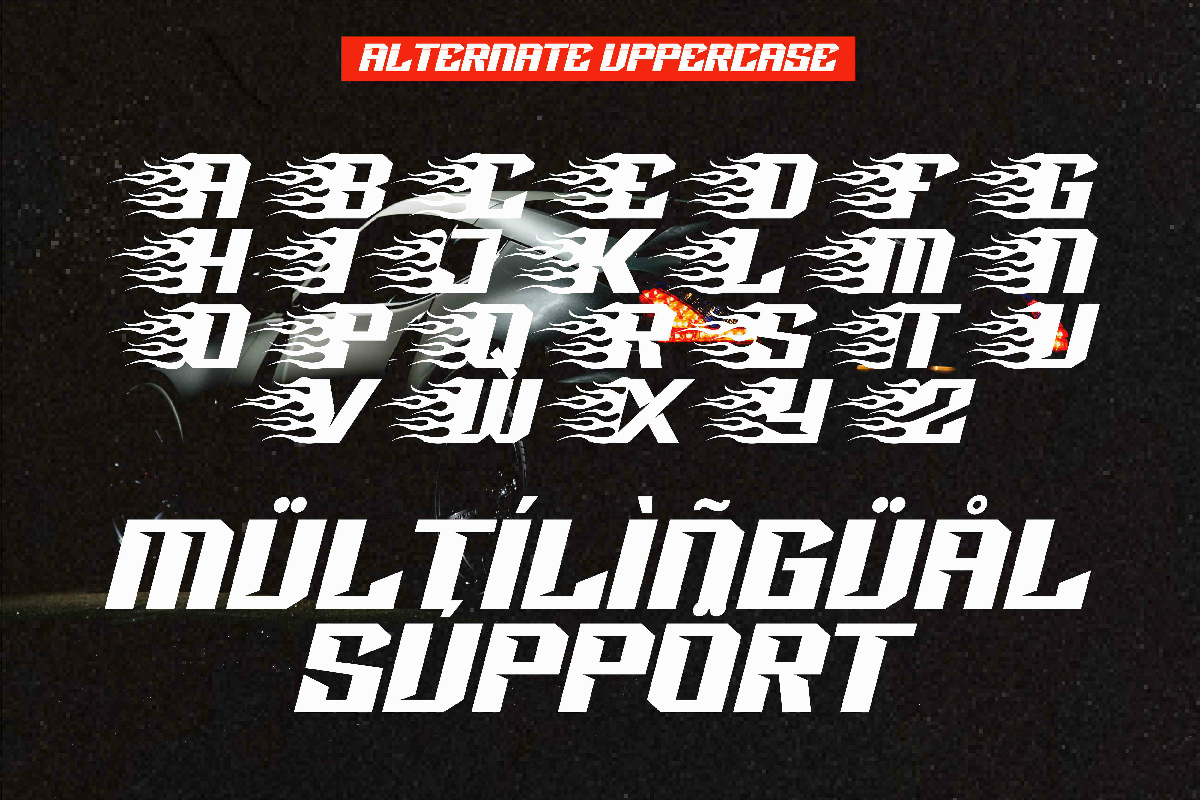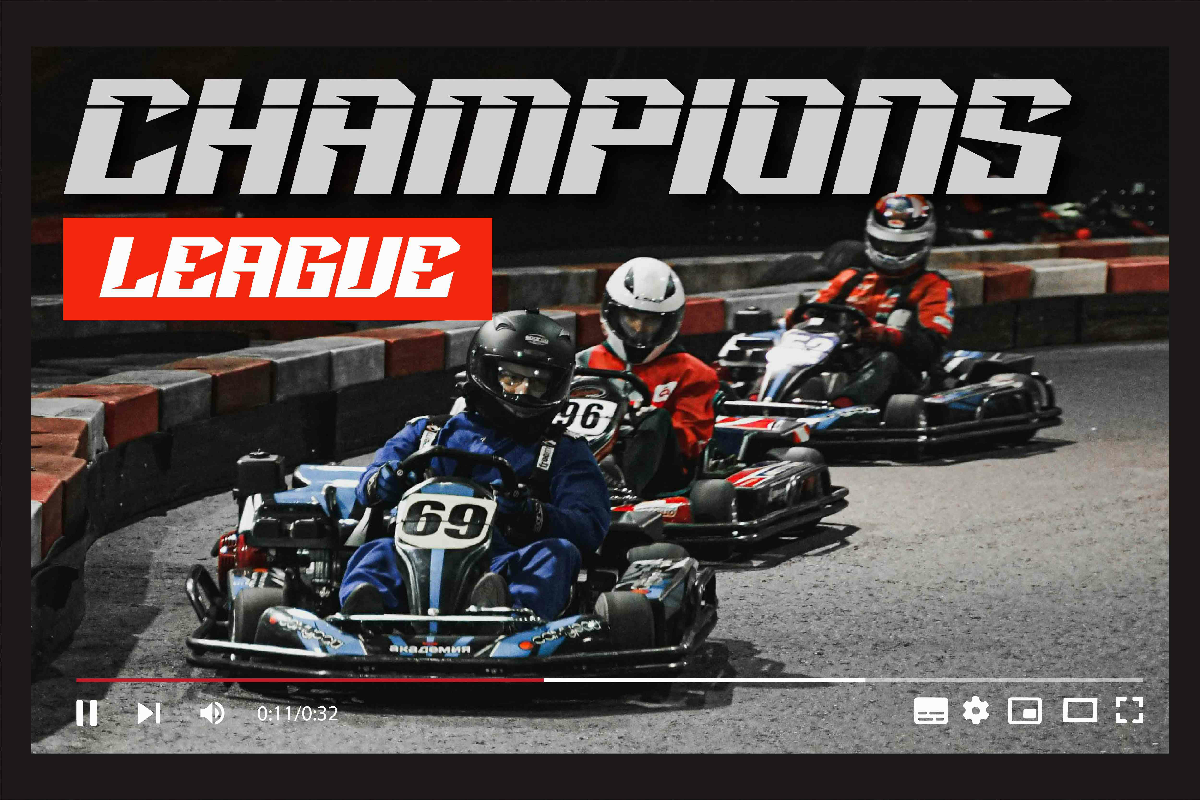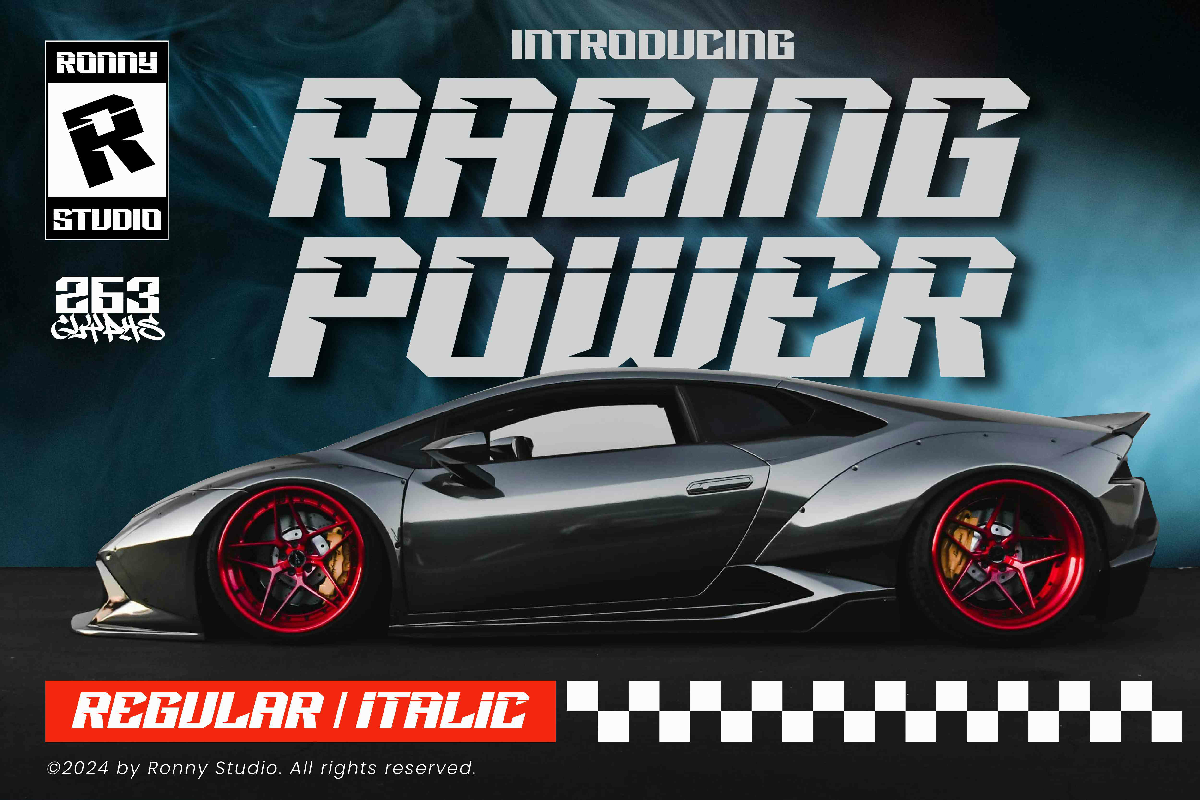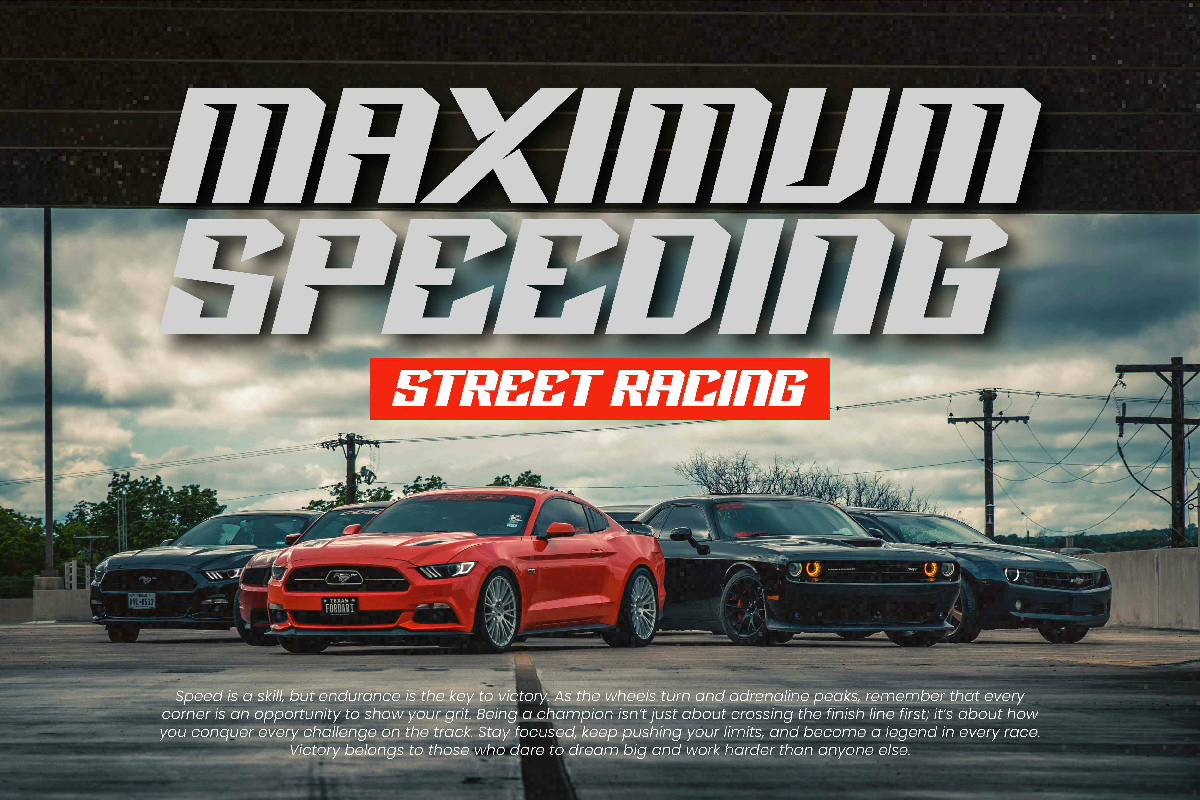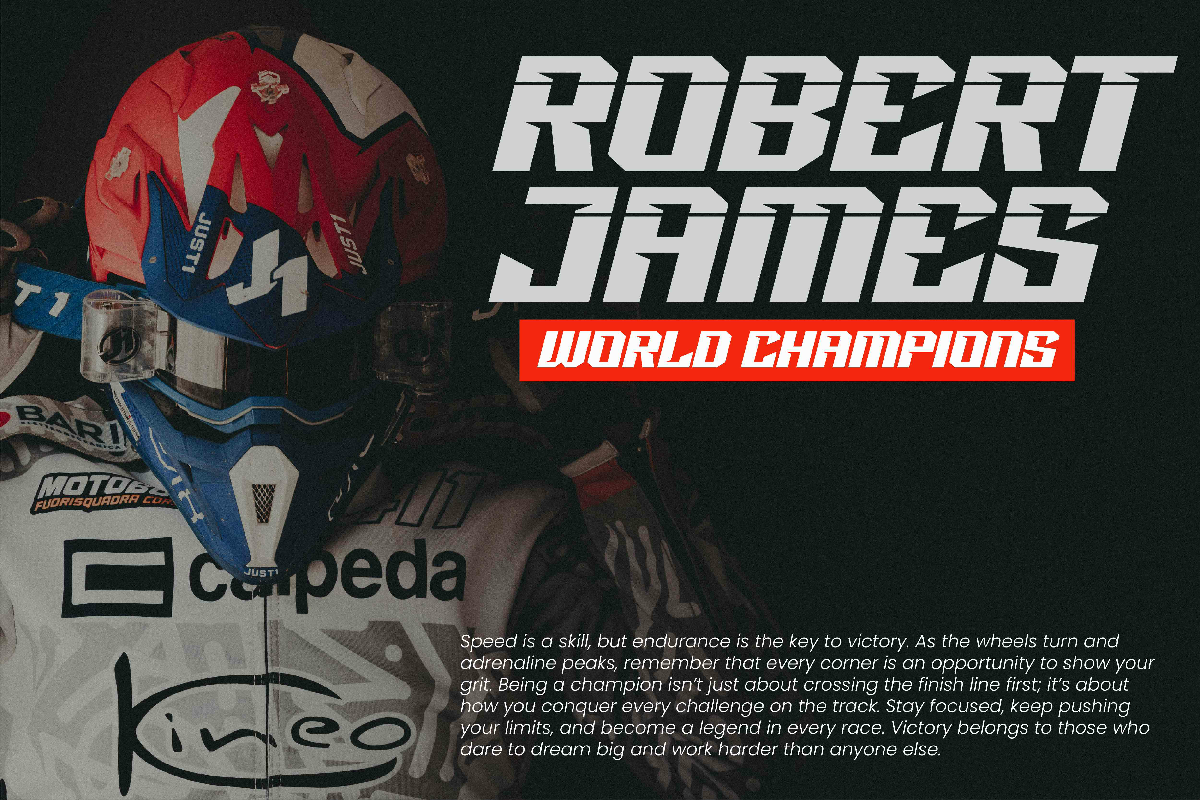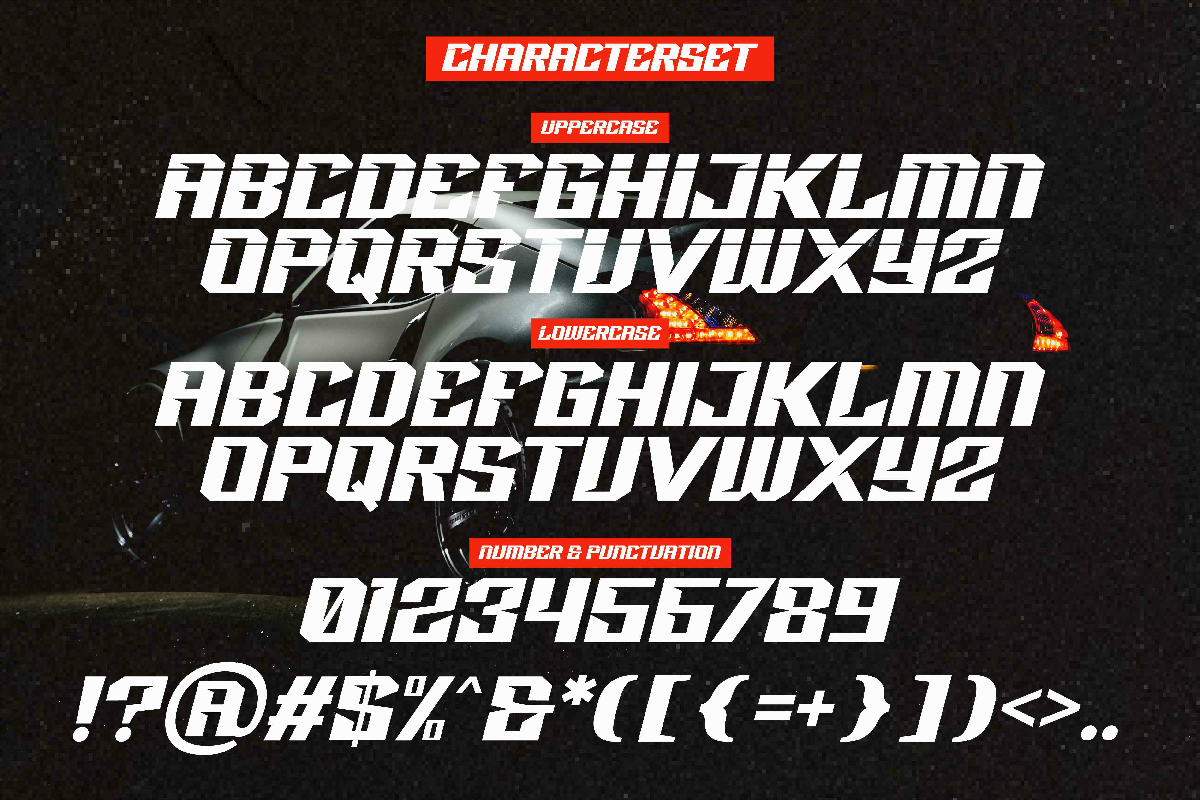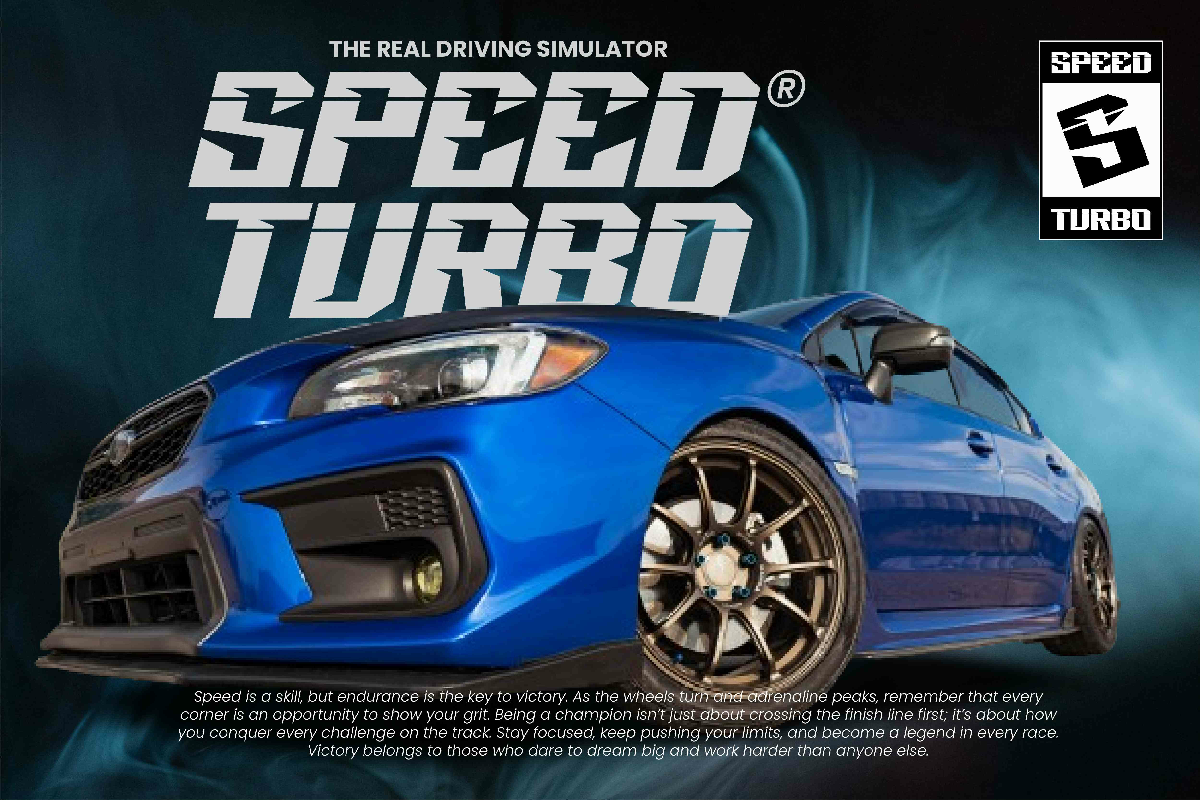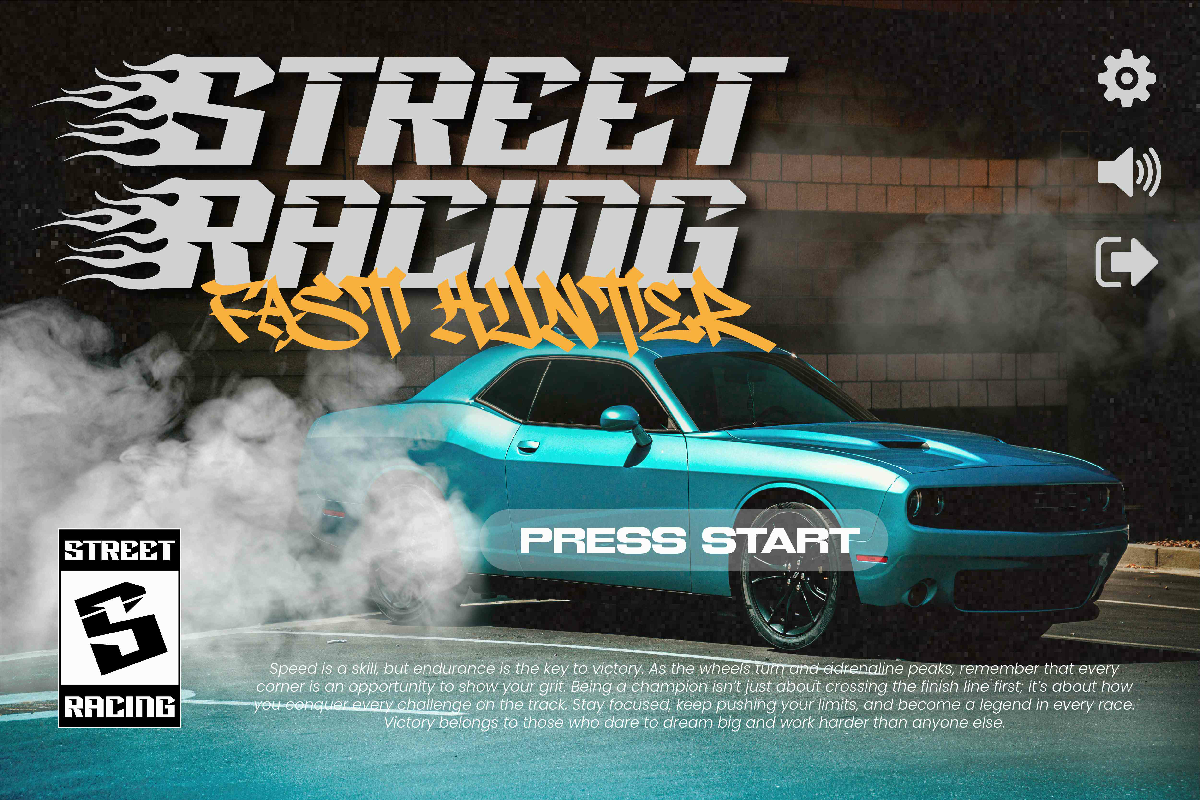
Racing Power Futuristic Speed Font
Racing Power – The Ultimate Speed Font for High-Performance Designs 🏎️🔥
Feel the adrenaline rush with Racing Power, a bold and futuristic font built for speed, power, and performance. Inspired by motorsports, street racing, and futuristic cars, this typeface is perfect for racing games, automotive branding, posters, and more.
🏁 Key Features:
✔ Sleek & Bold Lettering – Designed for speed-inspired aesthetics.
✔ Regular & Italic Styles – Perfect for dynamic and futuristic themes.
✔ Motorsport-Inspired Design – Great for race car branding, gaming graphics, and speed-related advertising.
✔ Supports Multiple Languages – Includes complete characters and alternate glyphs.
✔ Perfect For: Racing posters, esports logos, automotive branding, YouTube thumbnails, and high-speed gaming UI.
⚡ Upgrade Your Designs with Racing Power – The Font Built for Speed! ⚡